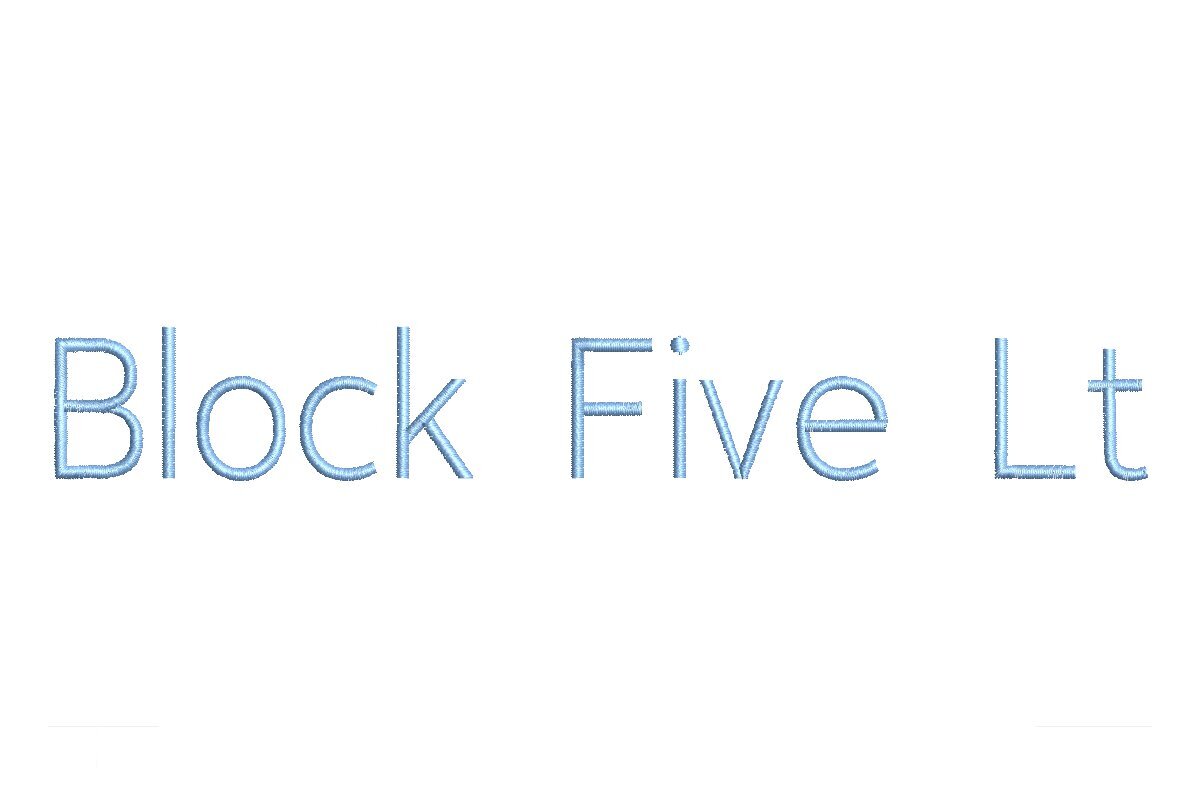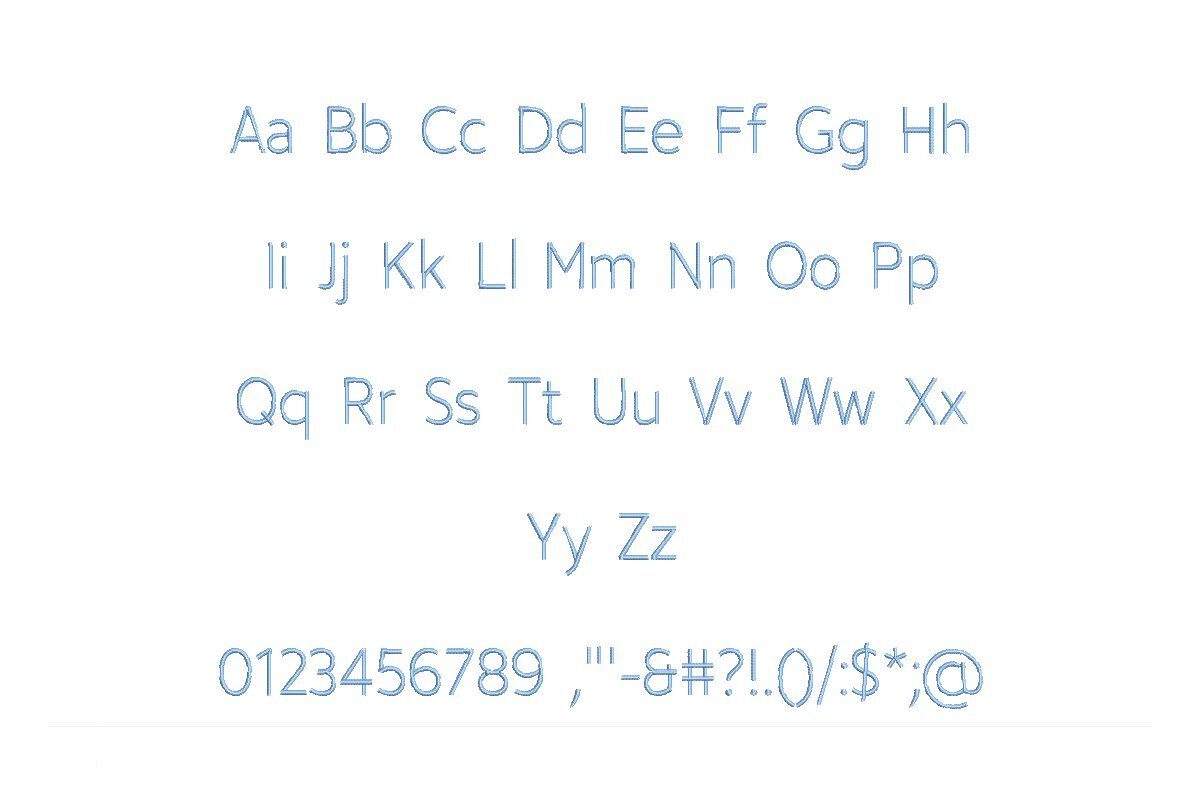
Introducing Block Five Light ESA Font - Your Gateway to Elegant Embroidery! Tailored for perfect compatibility with Wilcom Studio e4.5.6 and Hatch 3 versions and beyond, this font brings a touch of grace to your designs. Elevate your projects with its delicate strokes and refined appeal. Whether you're a seasoned professional or a passionate hobbyist, Block Five Light ESA unlocks a world of creative possibilities. Seamlessly integrate it with the latest software versions for efficiency, saving you valuable time. Each stitch resonates with precision and artistry, ensuring your embroidery projects shine. Don't miss the chance to add Block Five Light ESA Font to your repertoire. Start creating elegance today!